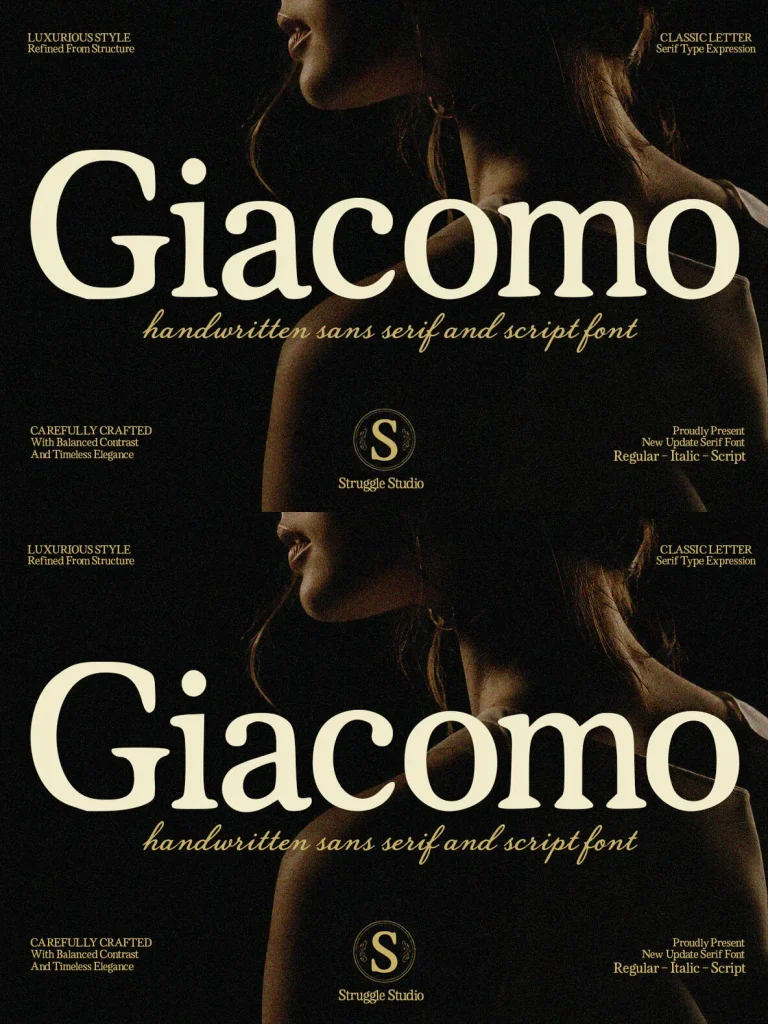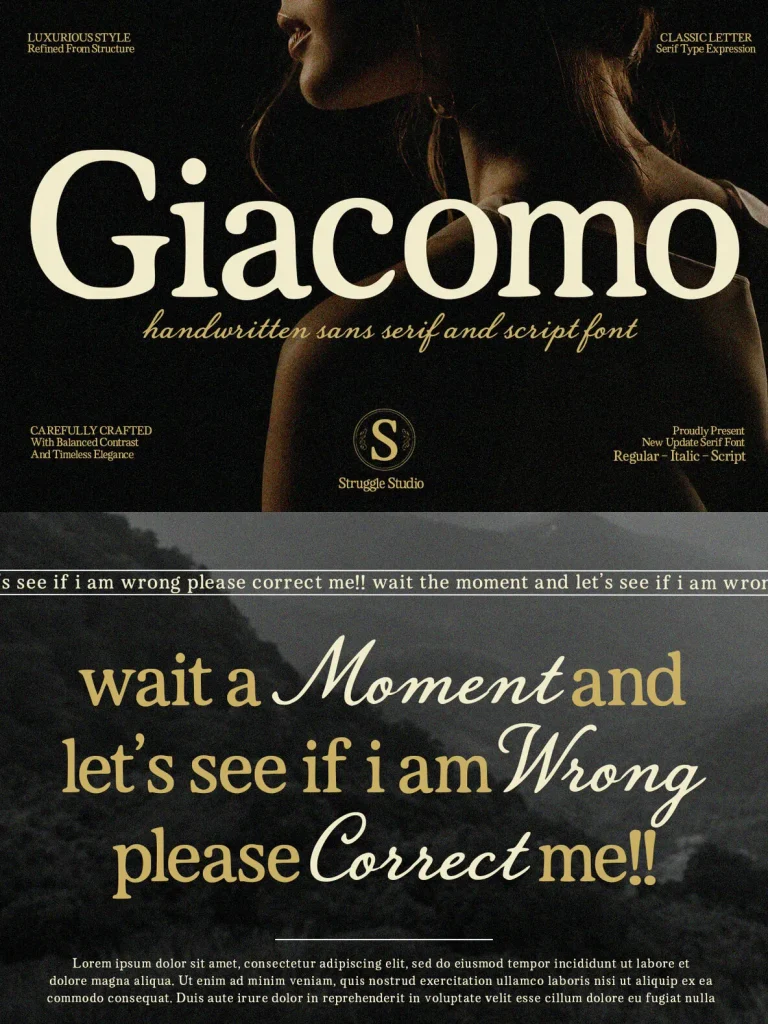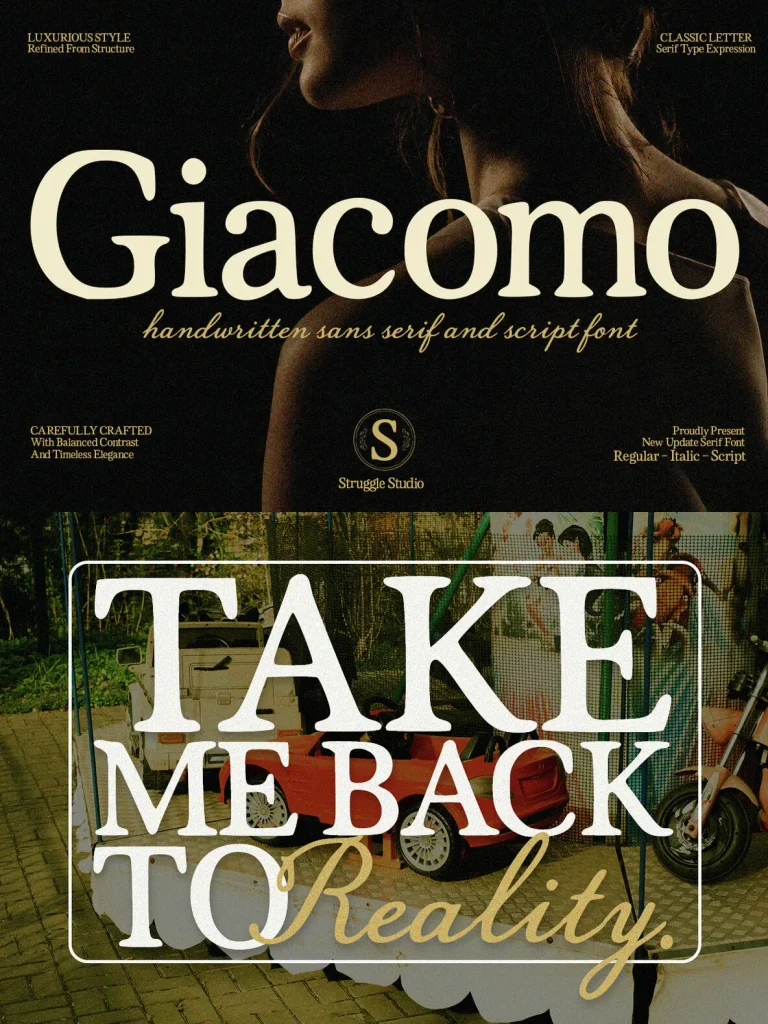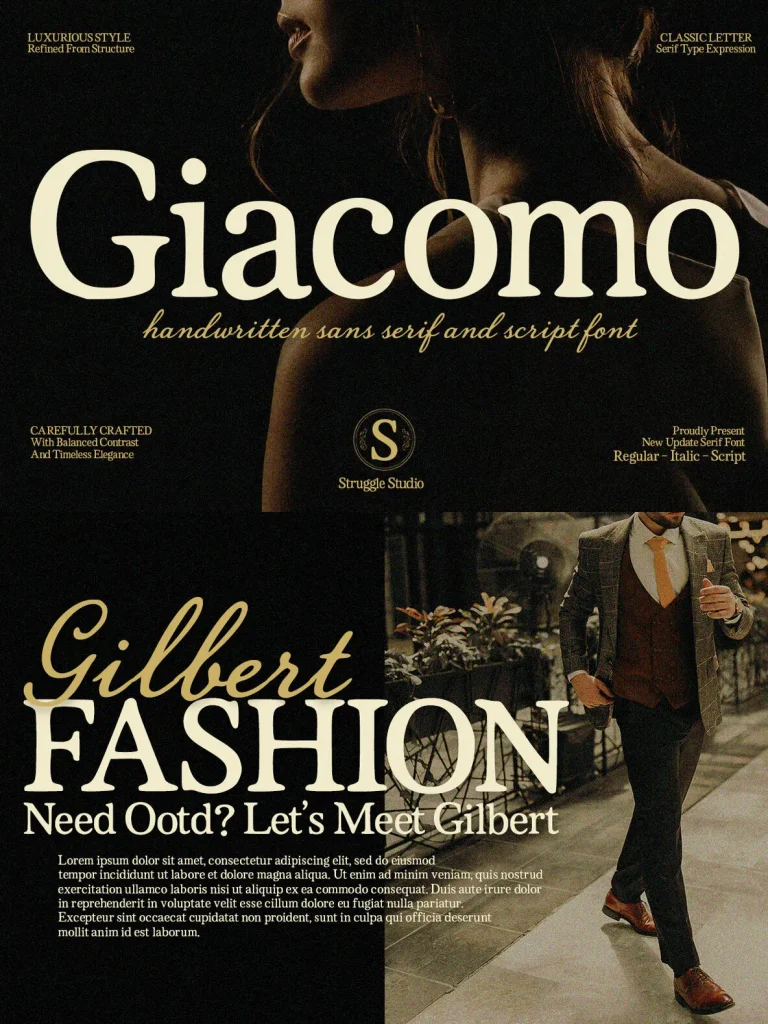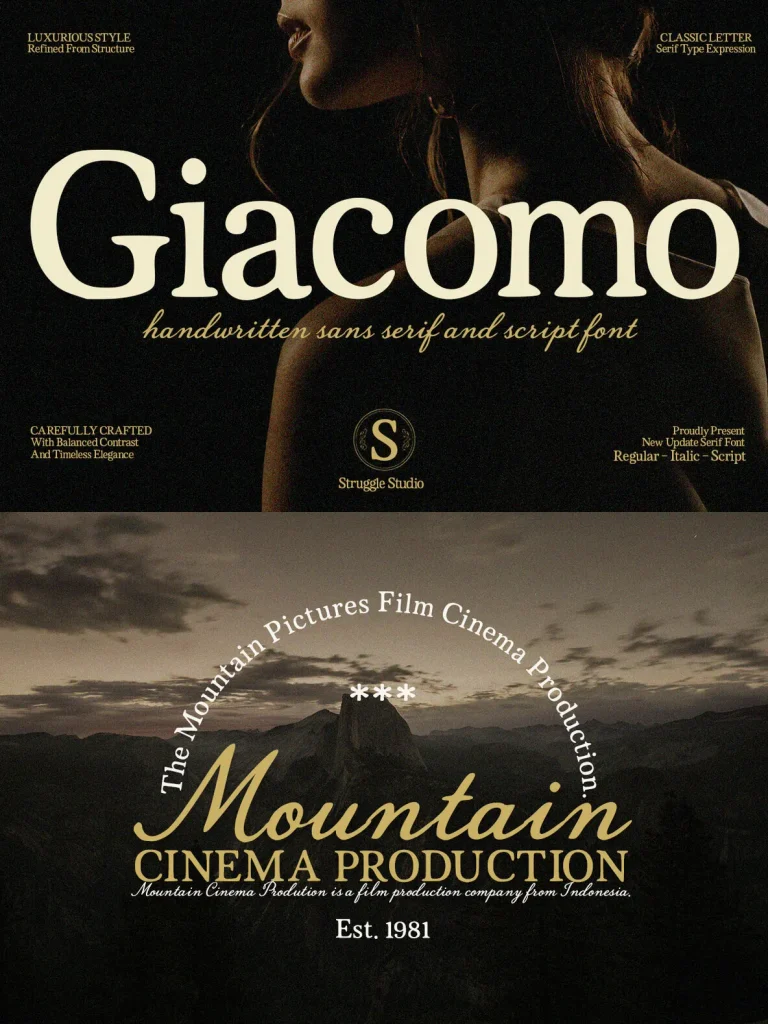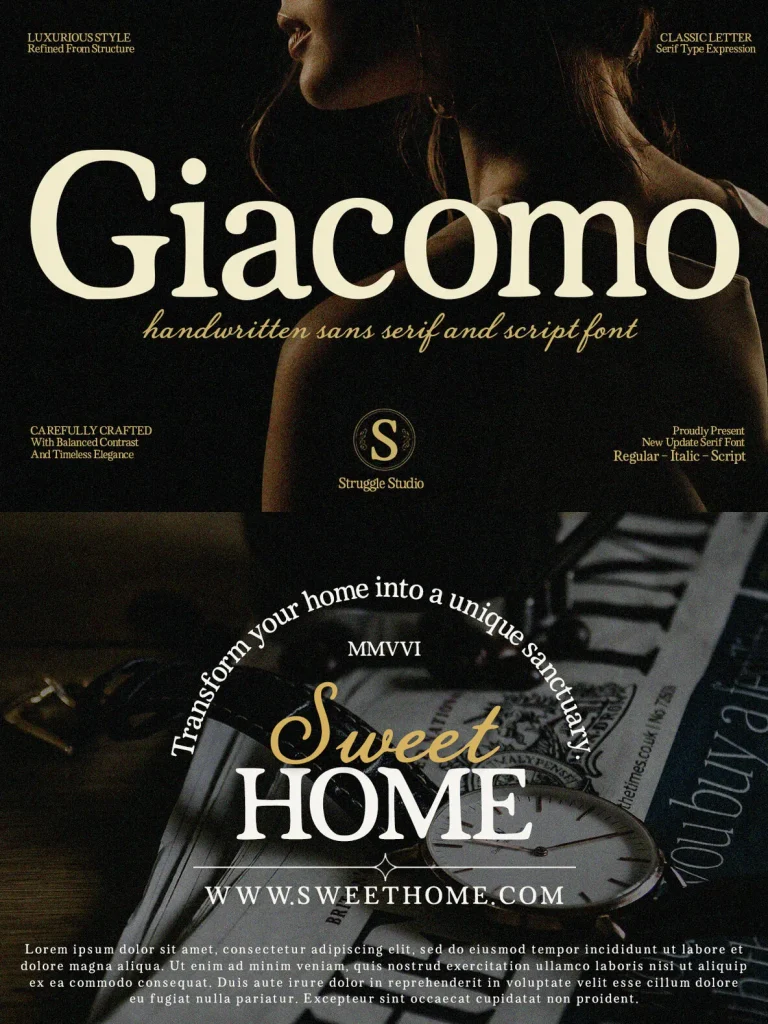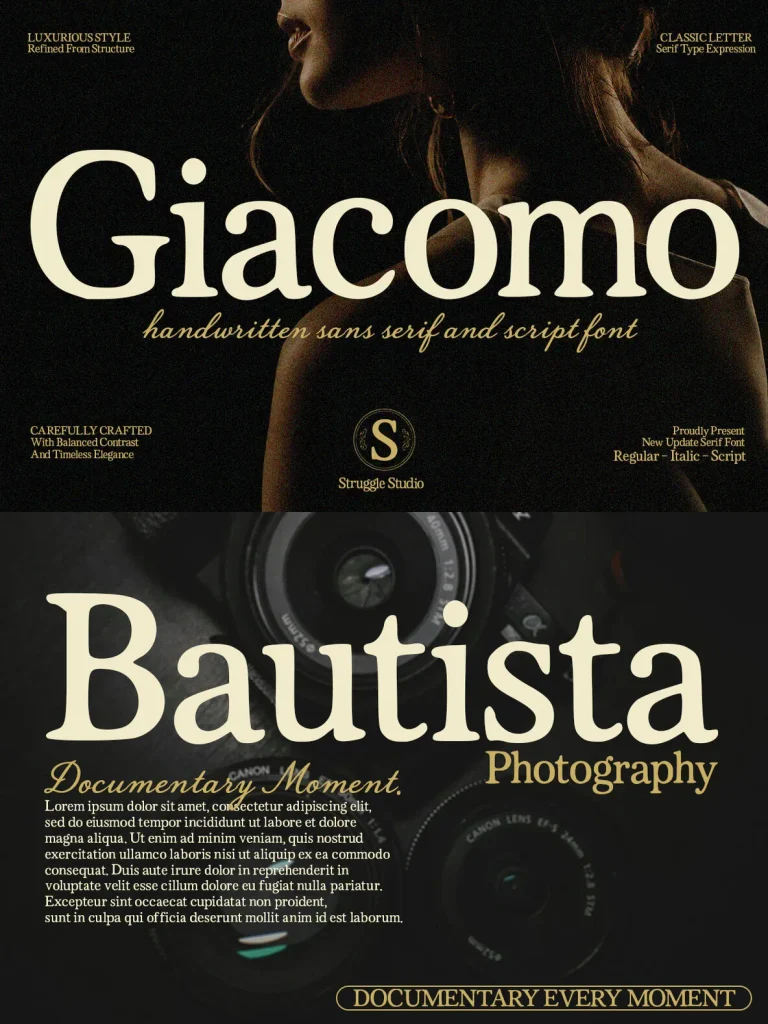
Giacomo Font
Giacomo — Luxury with Poise
Giacomo is a premium font collection by Strap Studio, made for luxury branding, high-end visual identities, and demanding design projects. It balances classic structure with modern refinement, giving designers a serif-led system with a graceful italic and a fluid script companion.
Designed for creators who refuse to compromise on sophistication, Giacomo suits fashion, beauty, hospitality, corporate identity, editorial design, packaging, and refined social media graphics. Its contrast, rhythm, and carefully considered details support strong hierarchy while keeping an elegant, high-class presence across print and digital work.
Regular: A stunning display serif featuring balanced contrast, bold presence, and timeless elegance.
Italic: A graceful, slanted variation that adds a dynamic yet high-class rhythm to your text.
Script: A beautifully fluid, handwritten companion that provides an authentic, organic touch to editorial layouts.
High-Contrast Serif Expression: Offers a powerful visual impact for headings and titles while maintaining flawless readability.
Luxurious Versatility: The seamless interplay between the bold serif and the organic script font gives you broad creative freedom.
Carefully Refined Details: Every curve, terminal, and ligature has been structurally refined to evoke a classic, editorial aesthetic.
Luxury branding, logos, and monograms
High-end editorial layouts and magazine covers
Elegant wedding invitations and stationery
Sophisticated product packaging and cosmetic labels
Social media graphics with a refined, moody aesthetic
Giacomo gives luxury typography a composed, editorial tone, allowing every layout to speak with clarity, restraint, and lasting elegance.